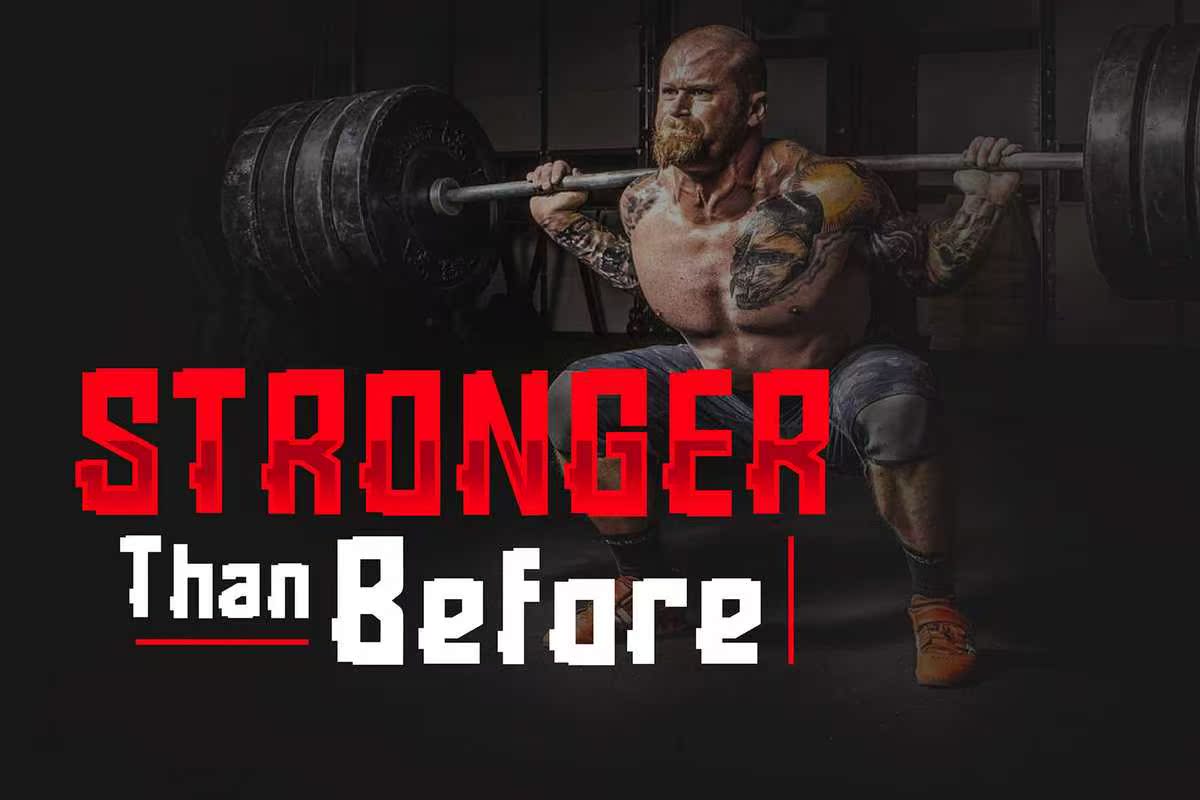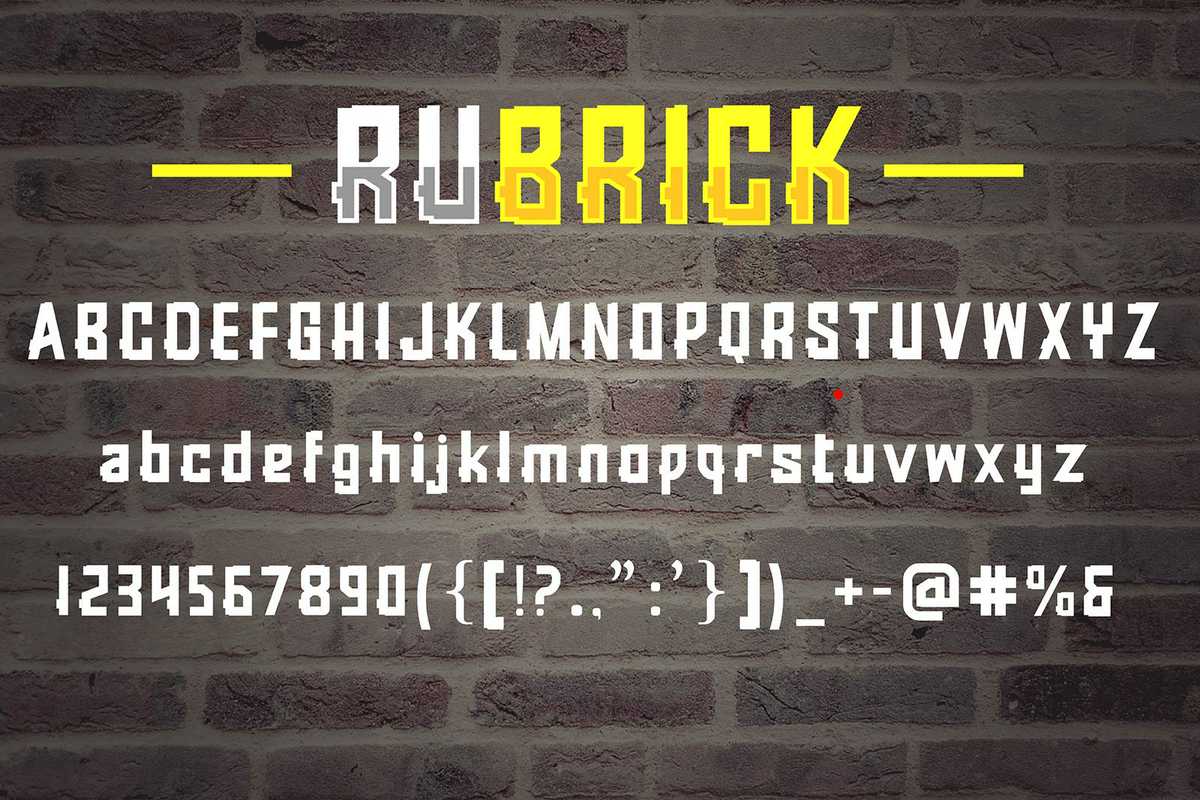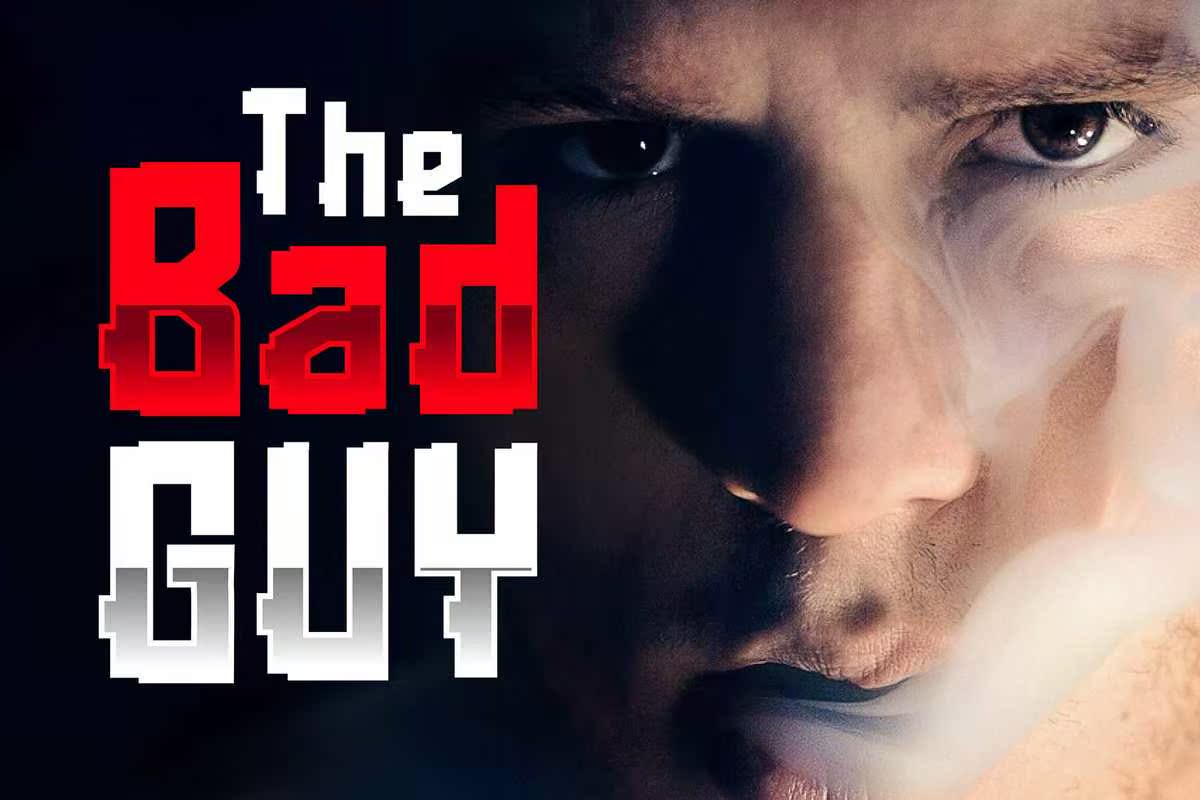
RubrickFontStrong位于UniqueStyleAlphabet.Set of Multicolored BrightLetters字体和YourDesign.VectorillInstruction.IsolatedOn WhiteBackground.RubrickFontStrong位于UniqueStyleAlphabet.Set of Multicolored BrightLetters字体和YourDesign.VectorillInstruction.IsolatedOn WhiteBackground。